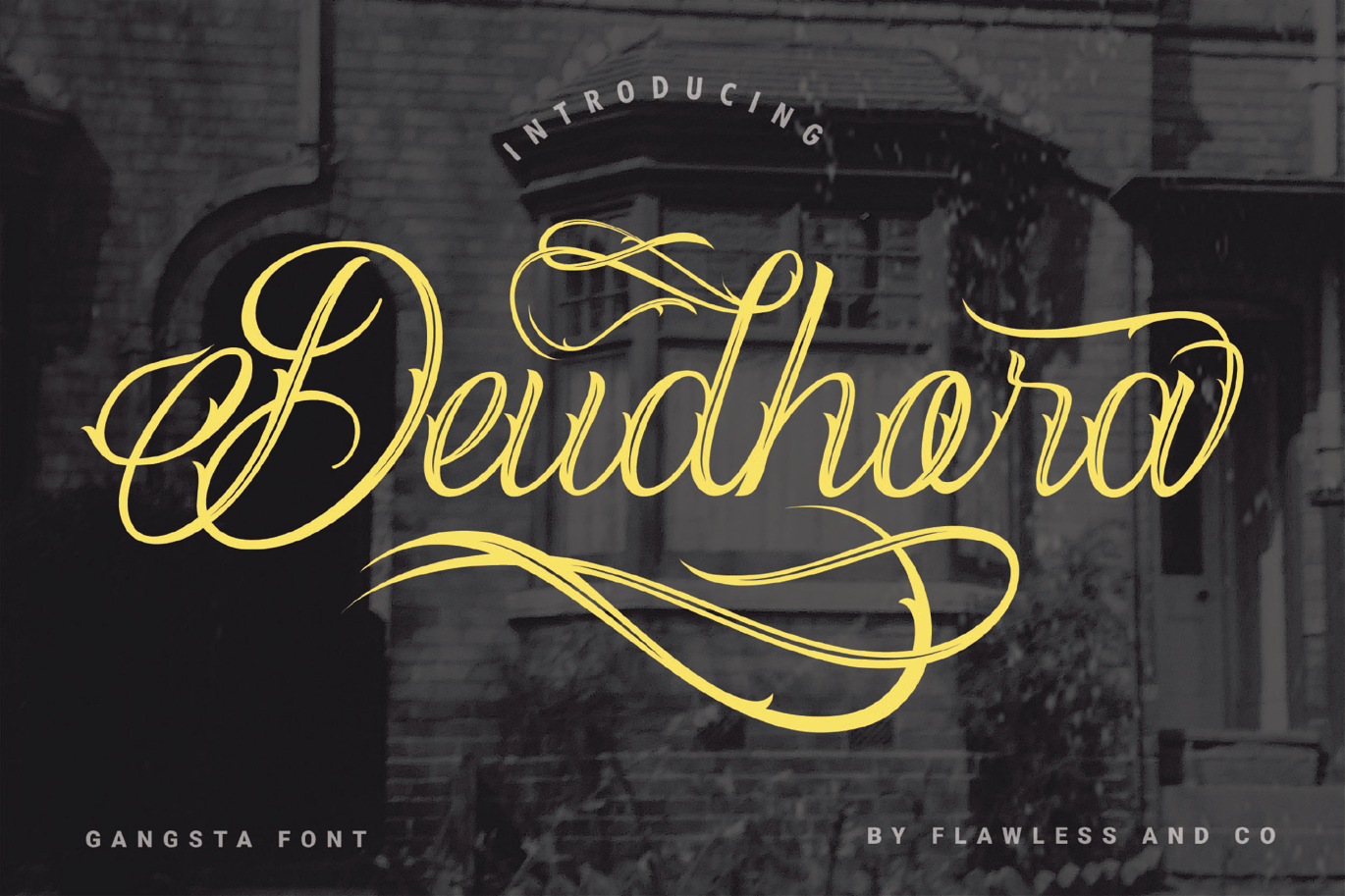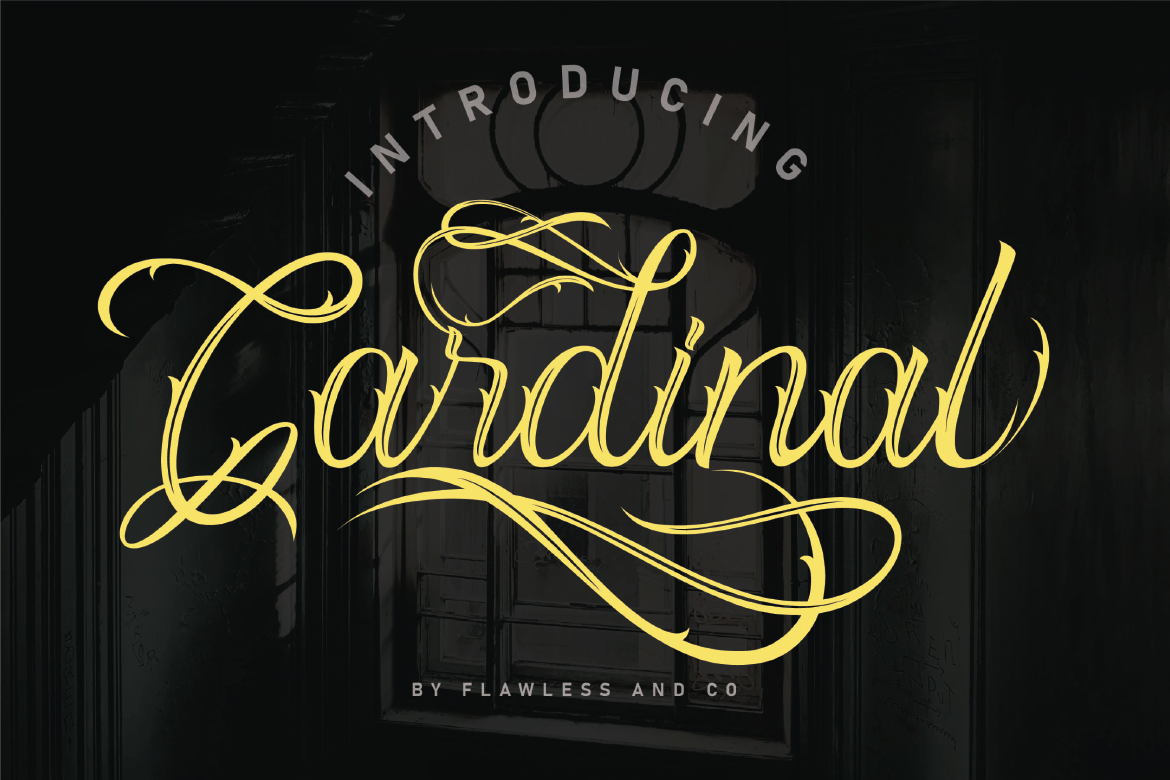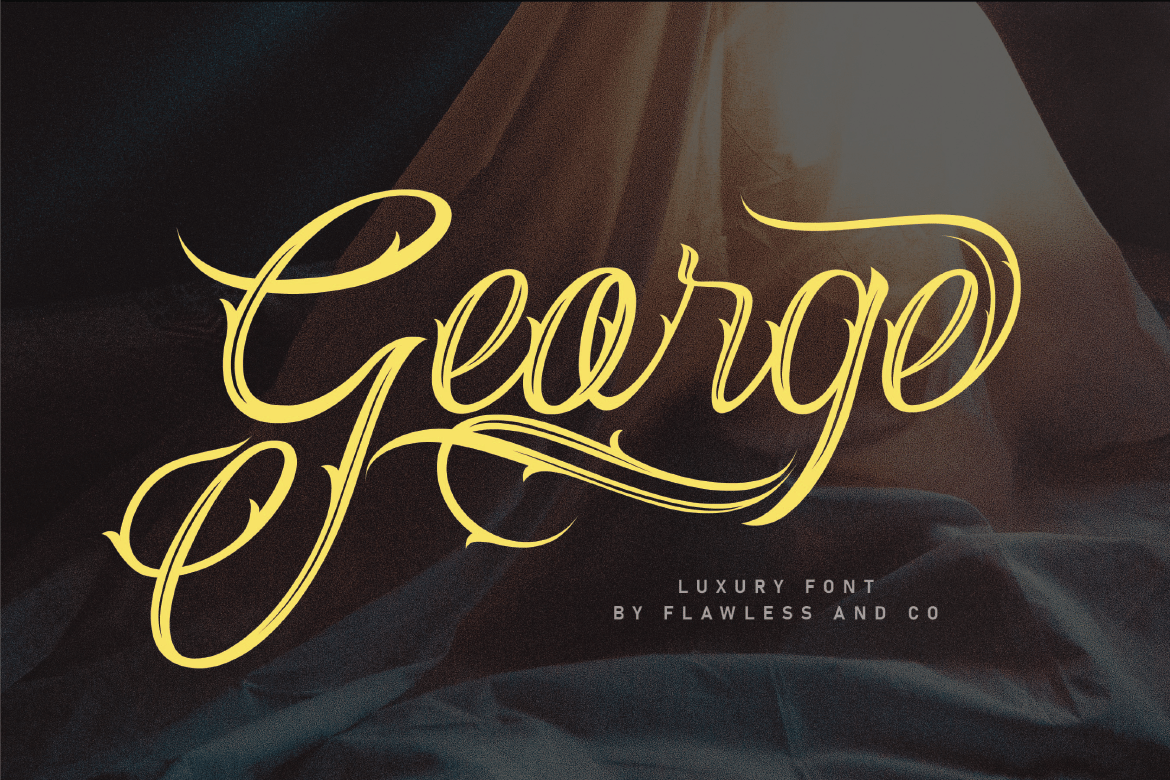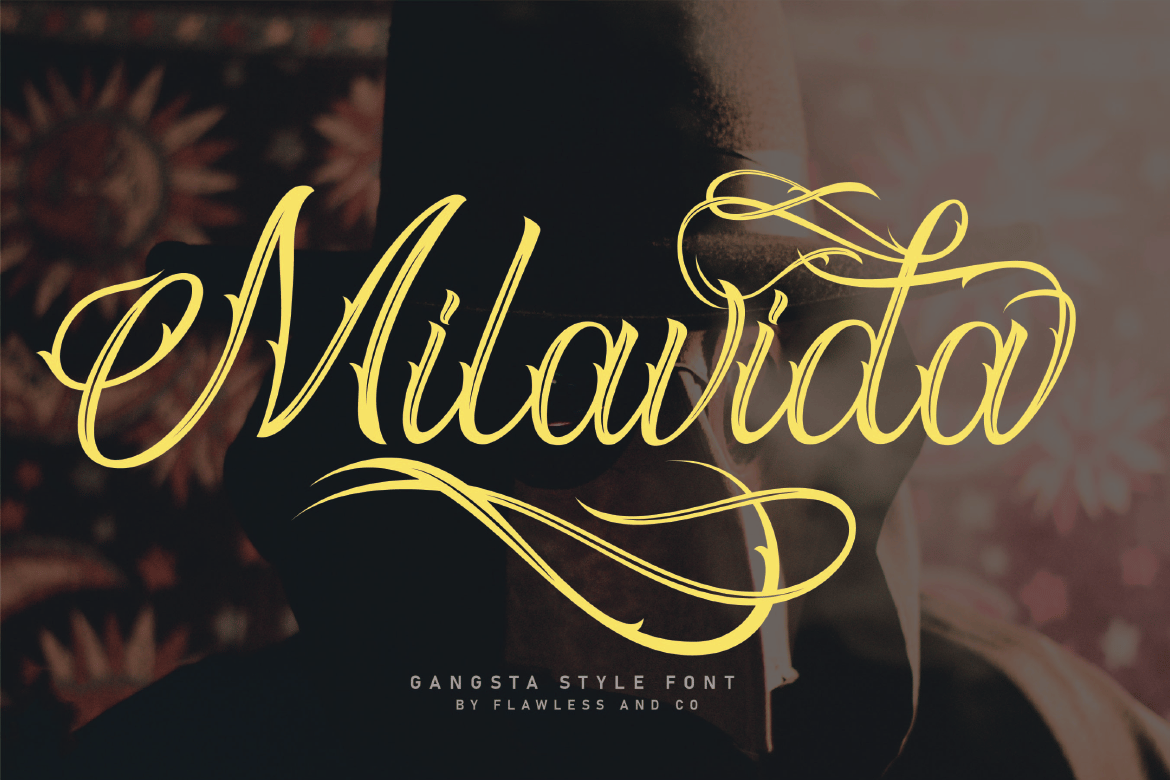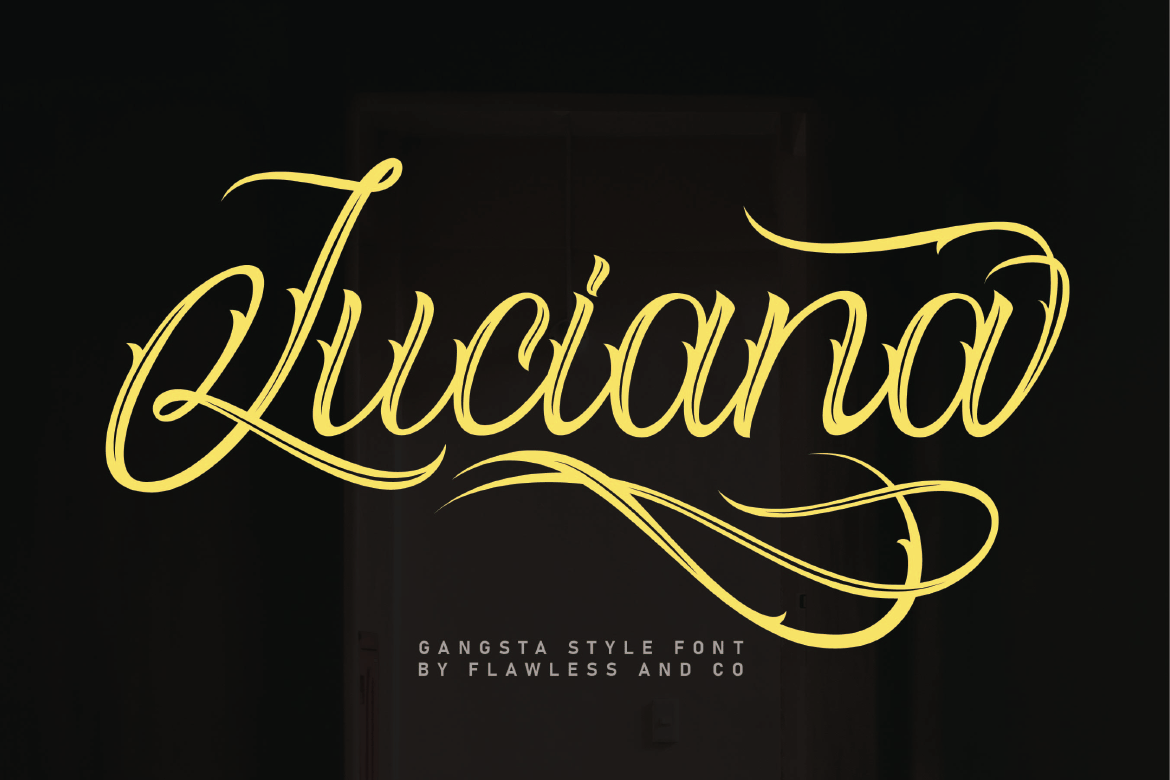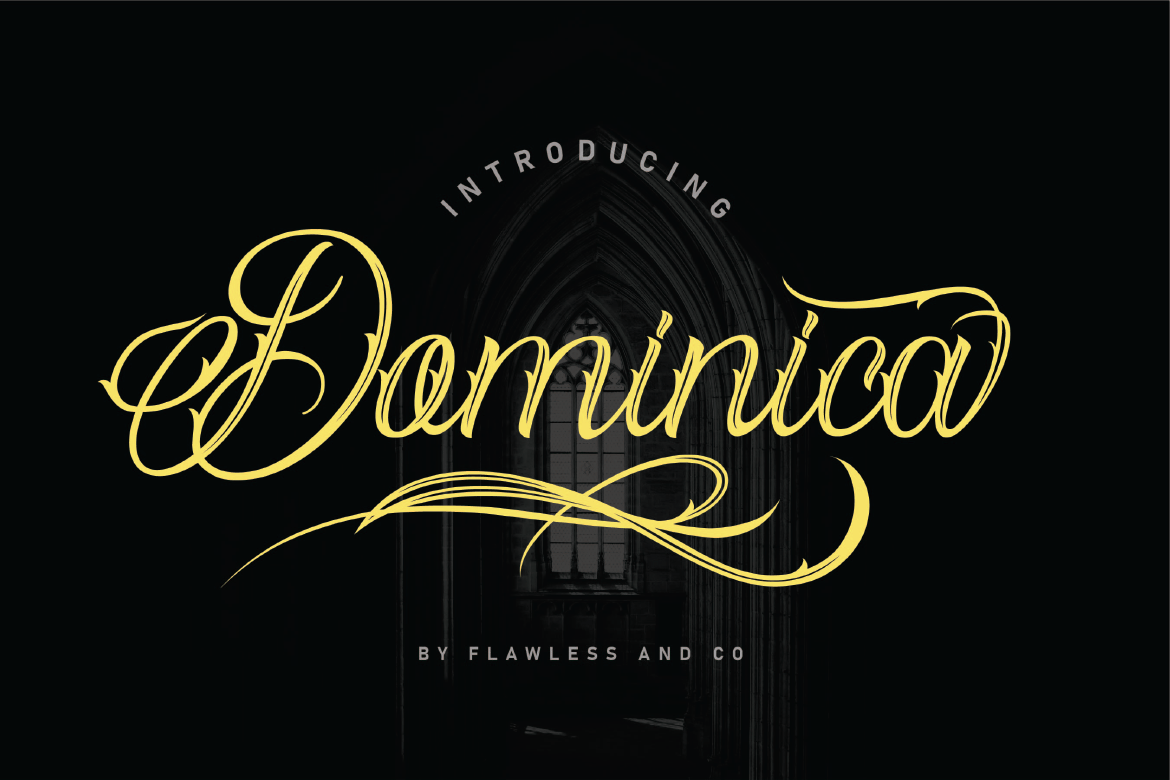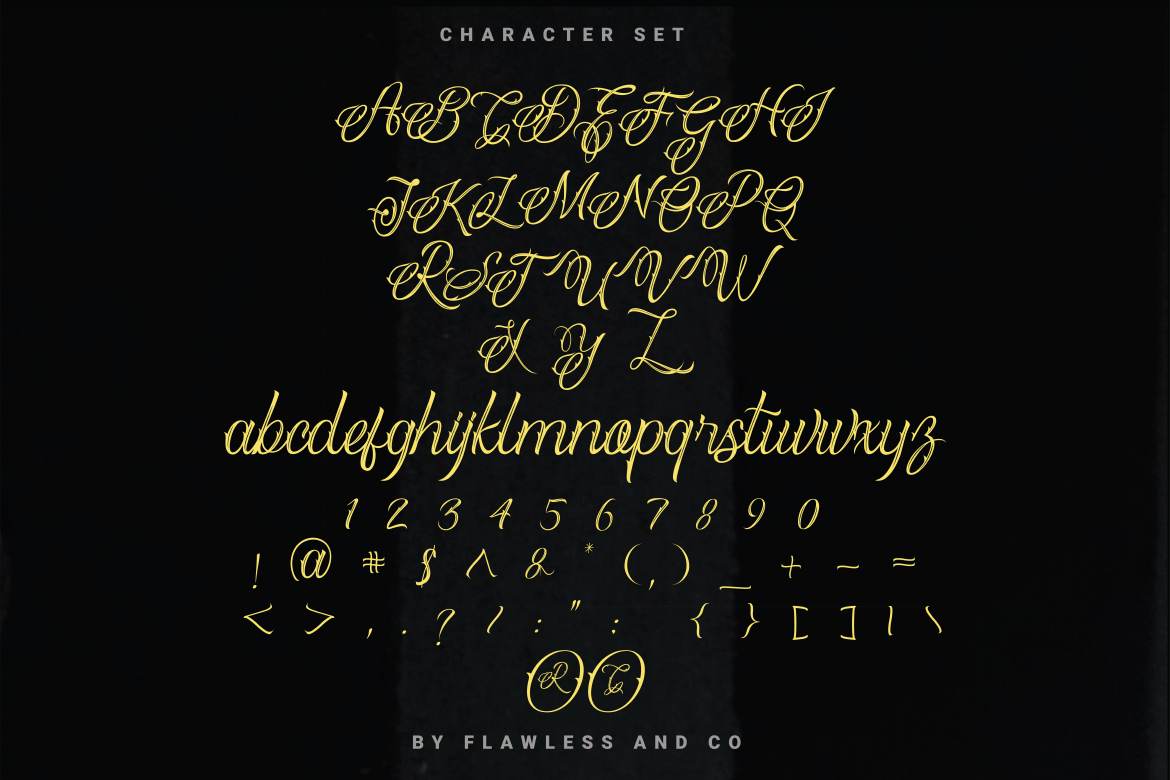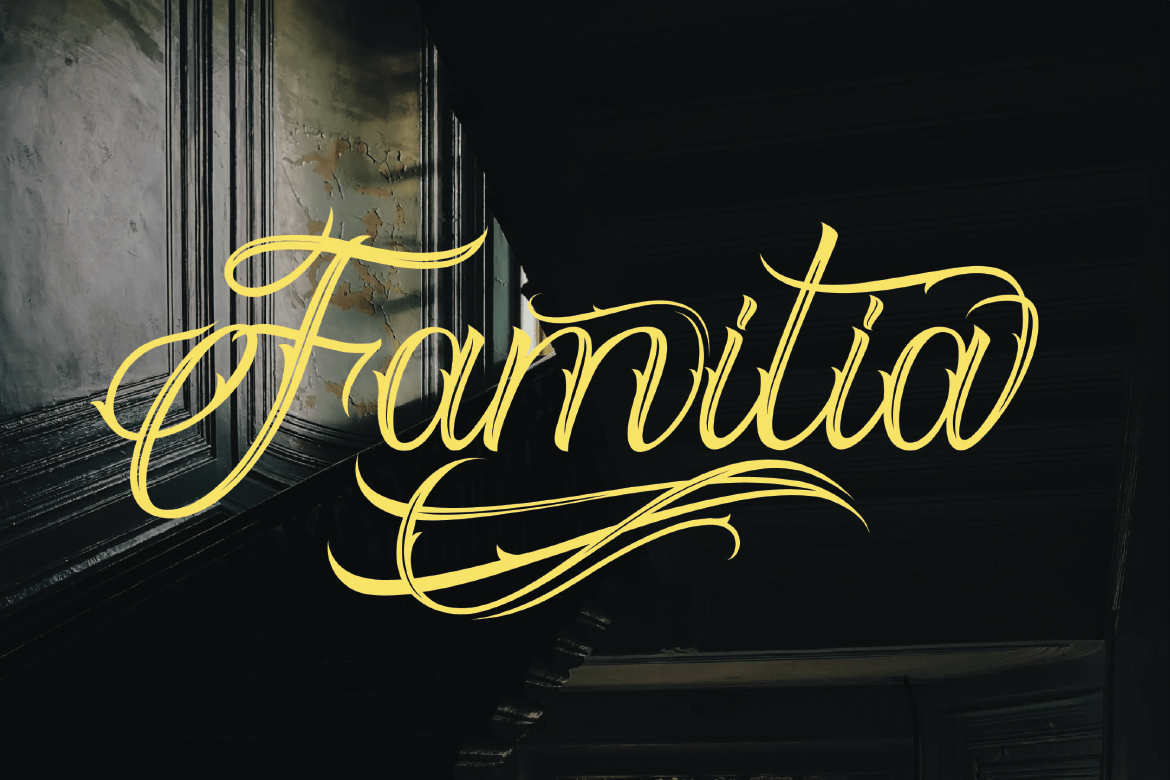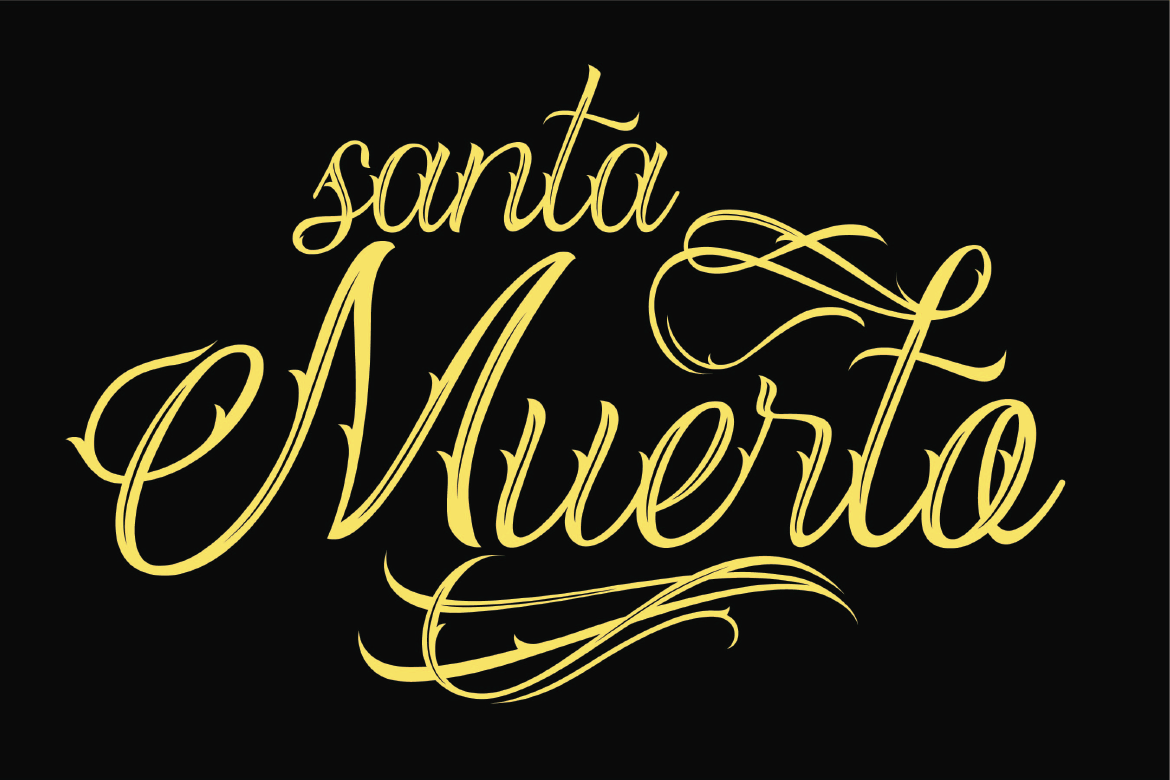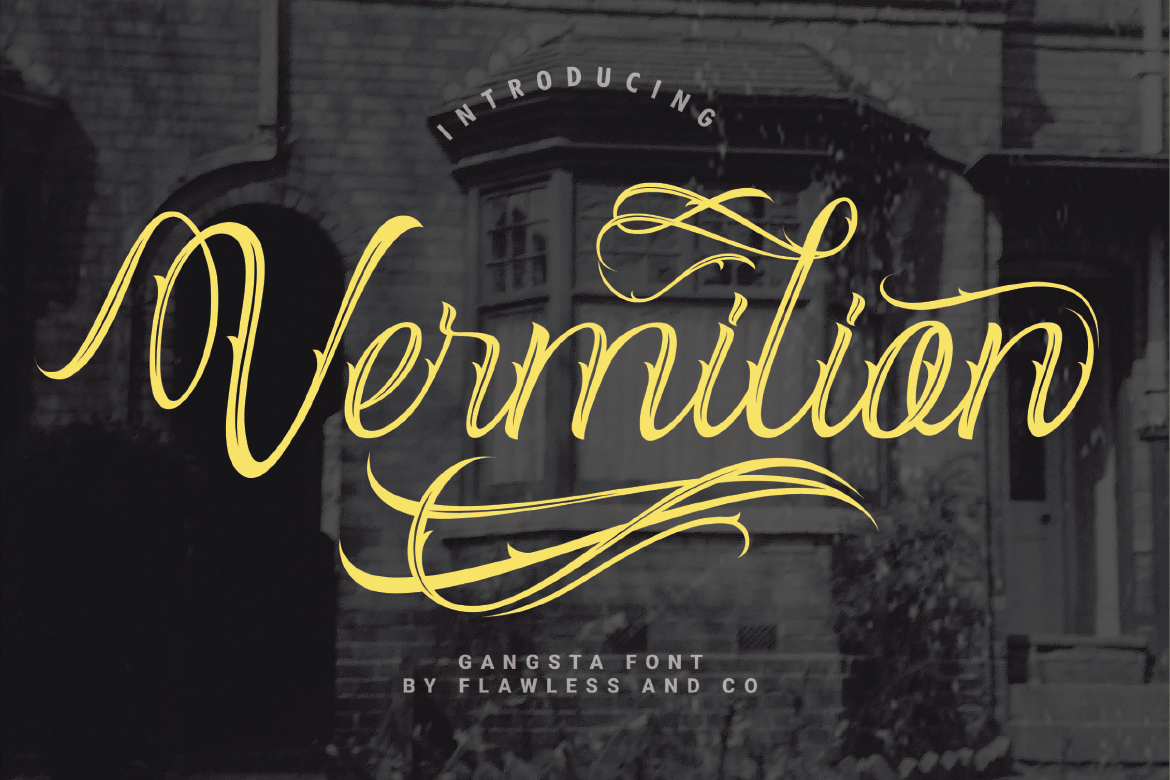
Deudhora – Blackletter Tattoo Font
introducing our new “Deudhora” Modern Blackletter Font with Elegant Style is perfect for your design
Alternate Character